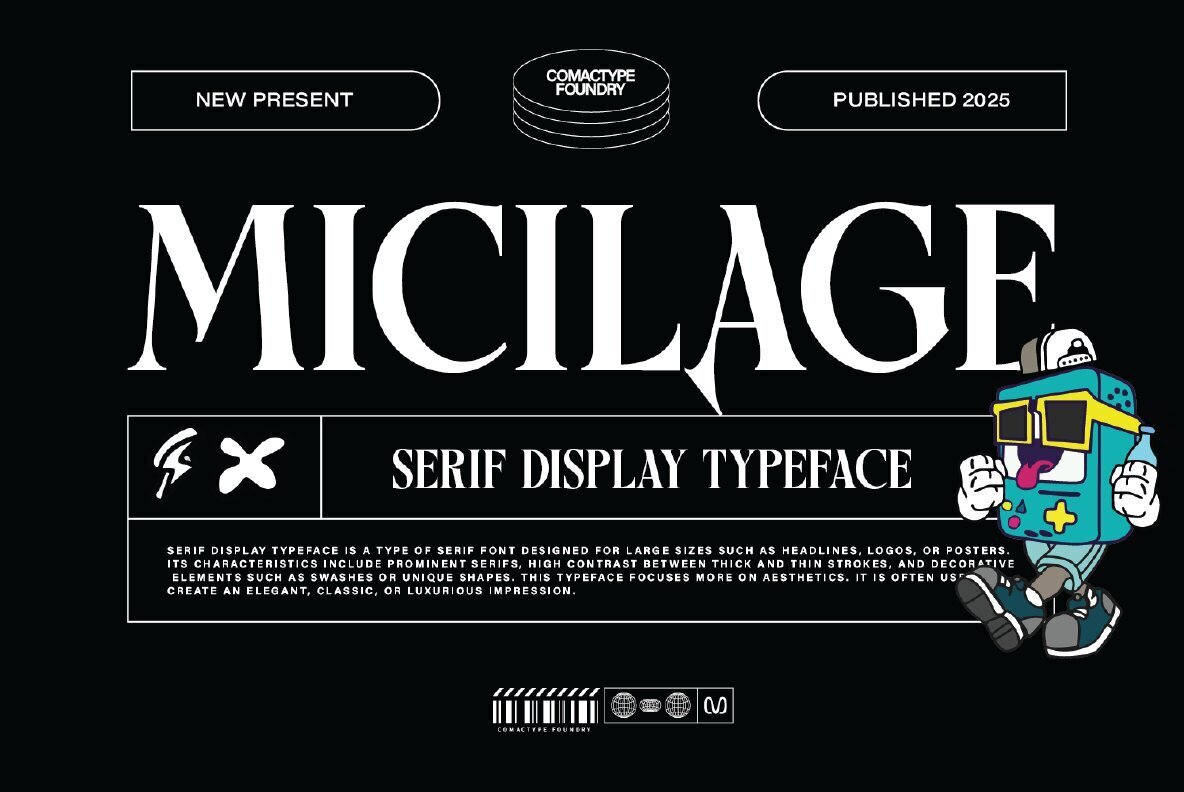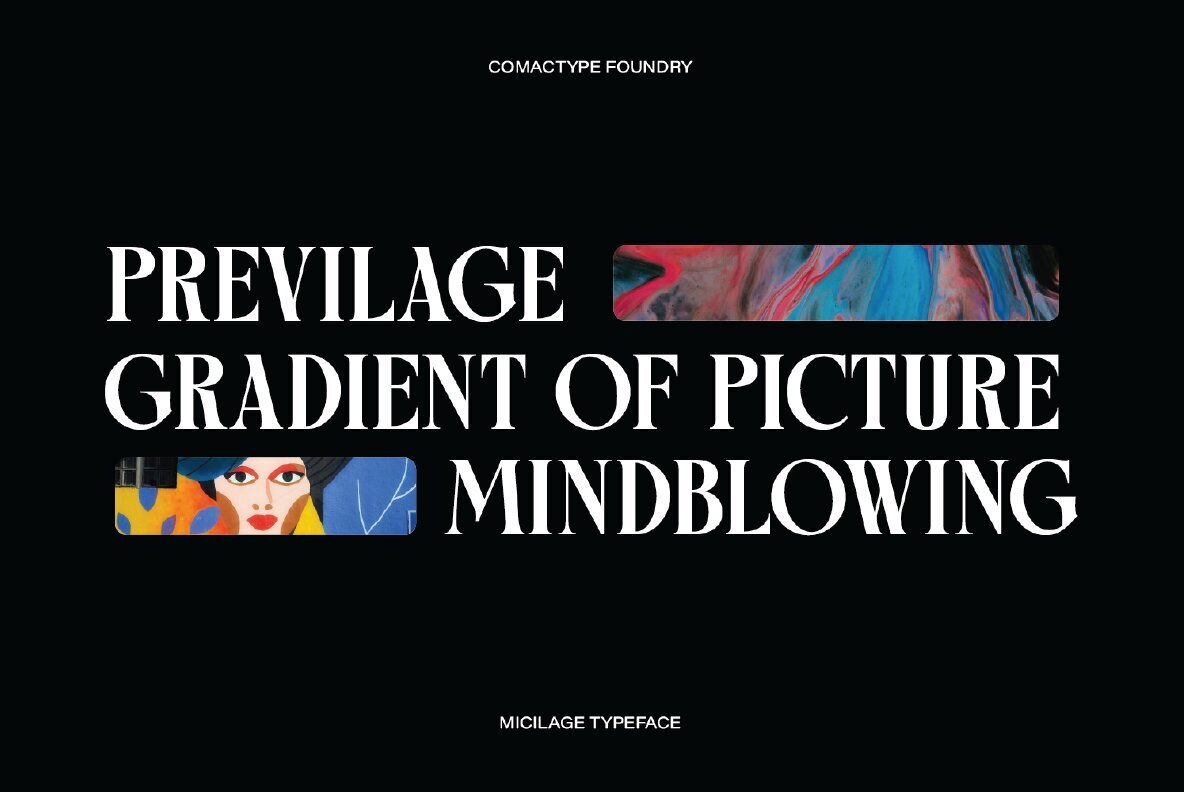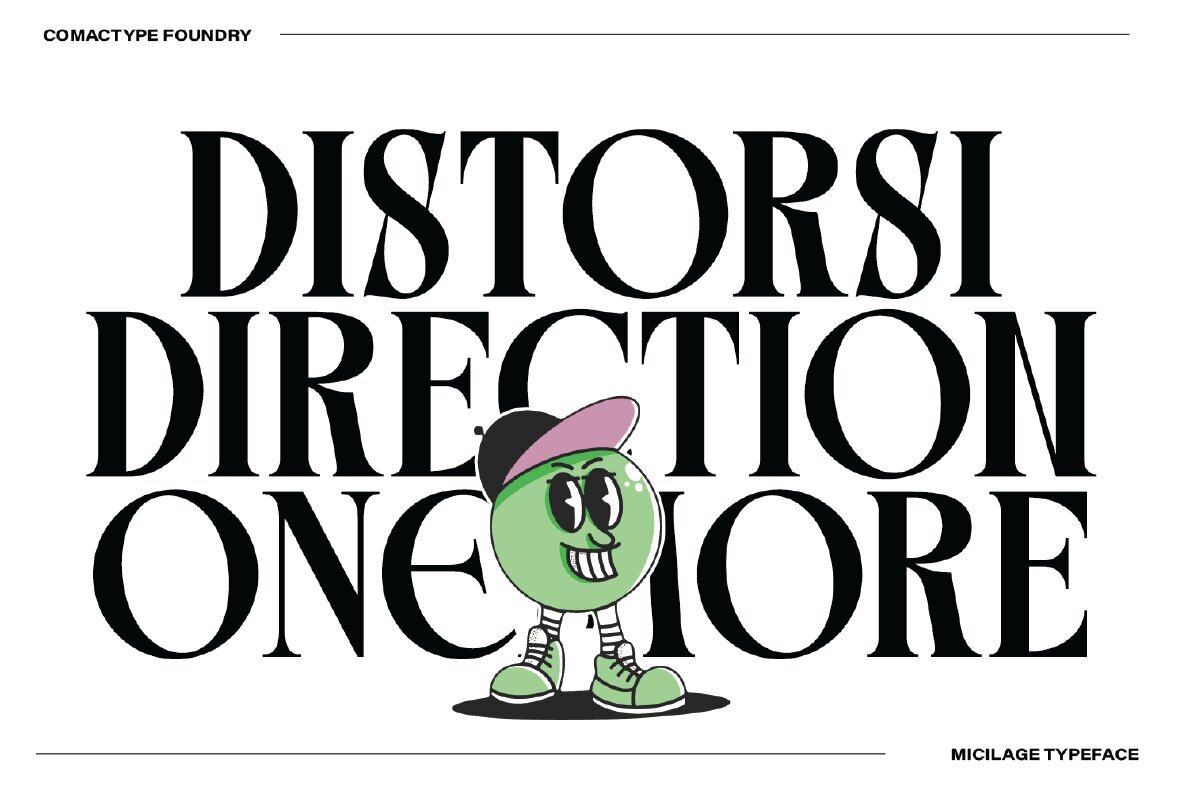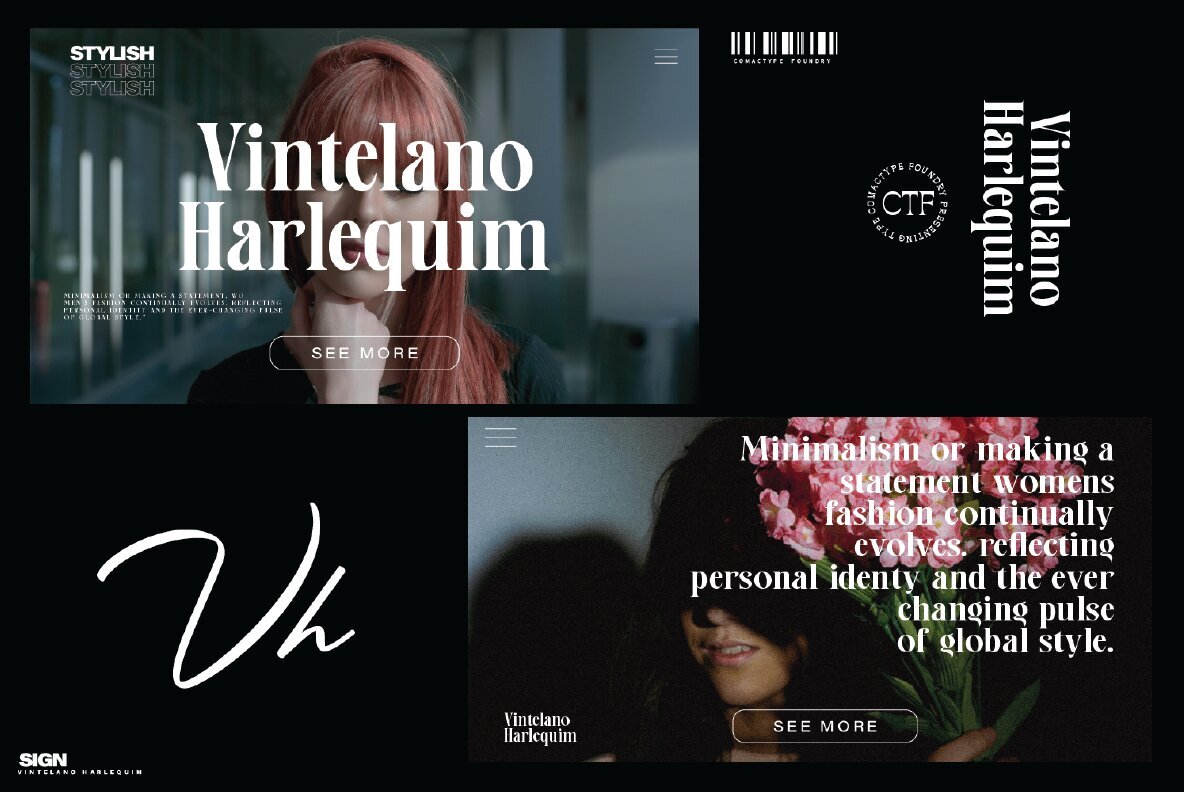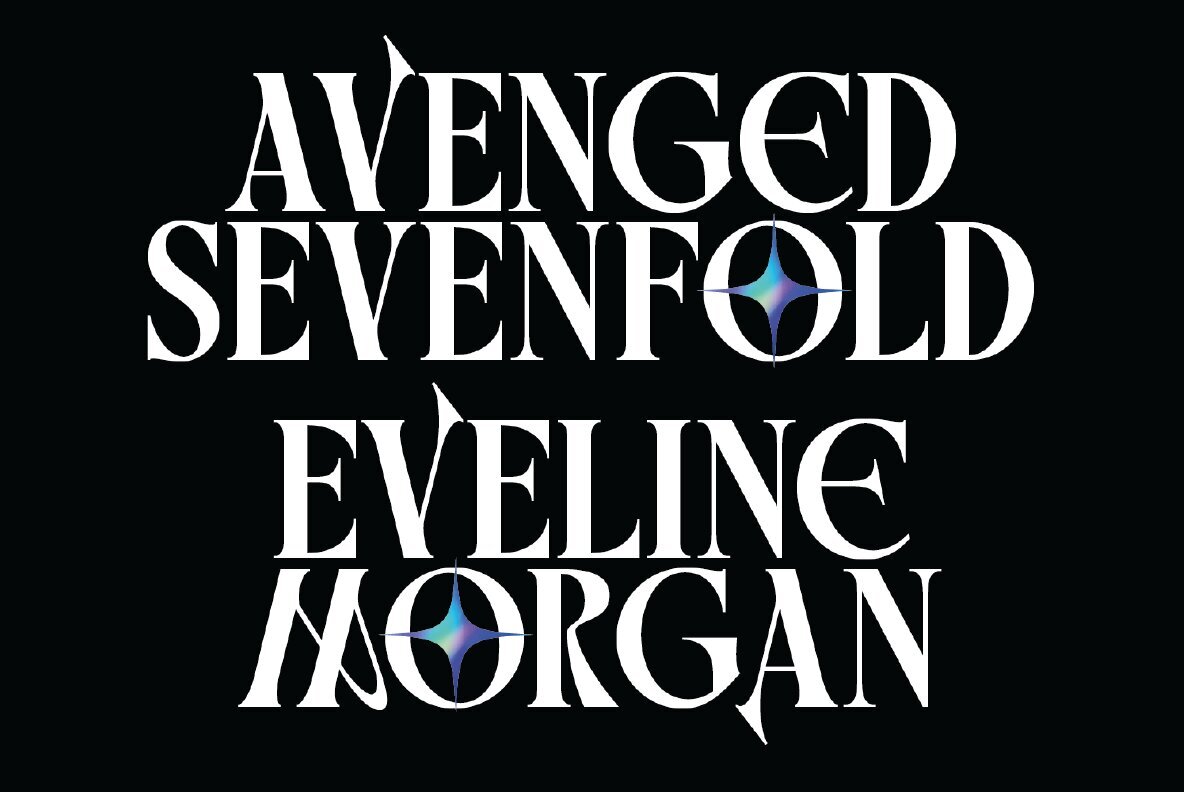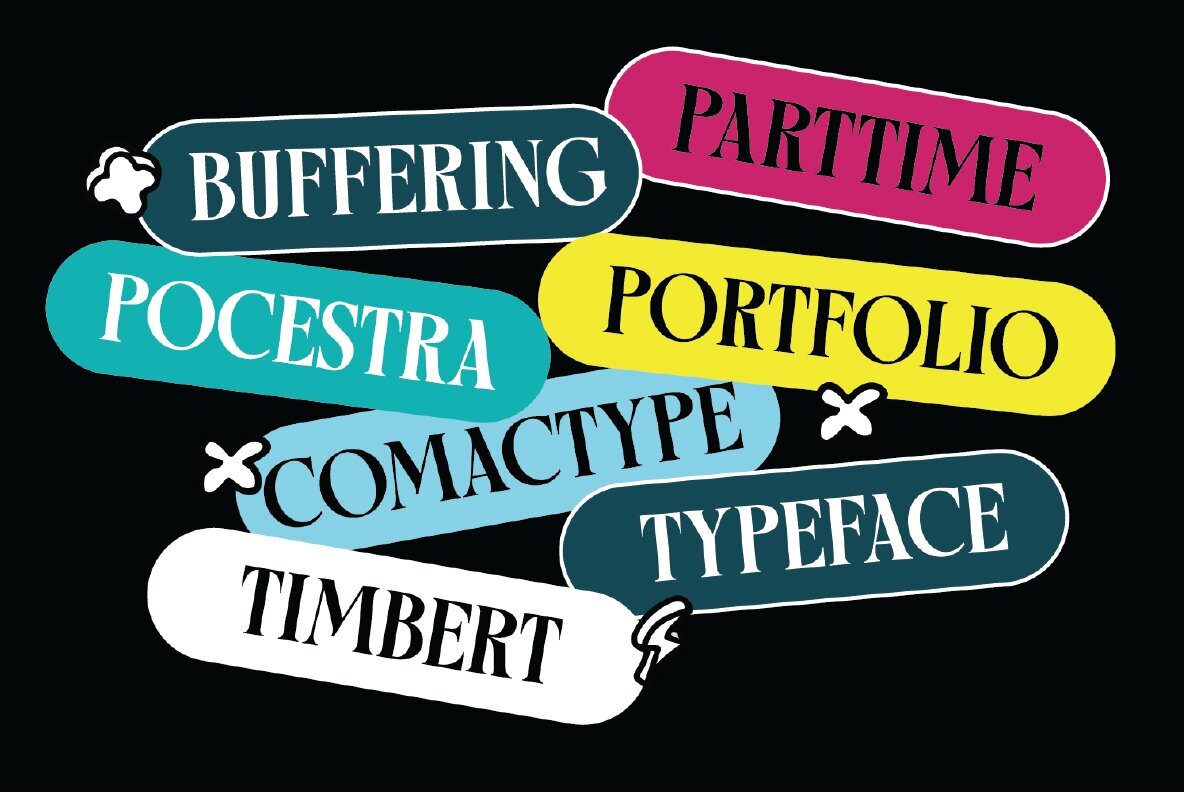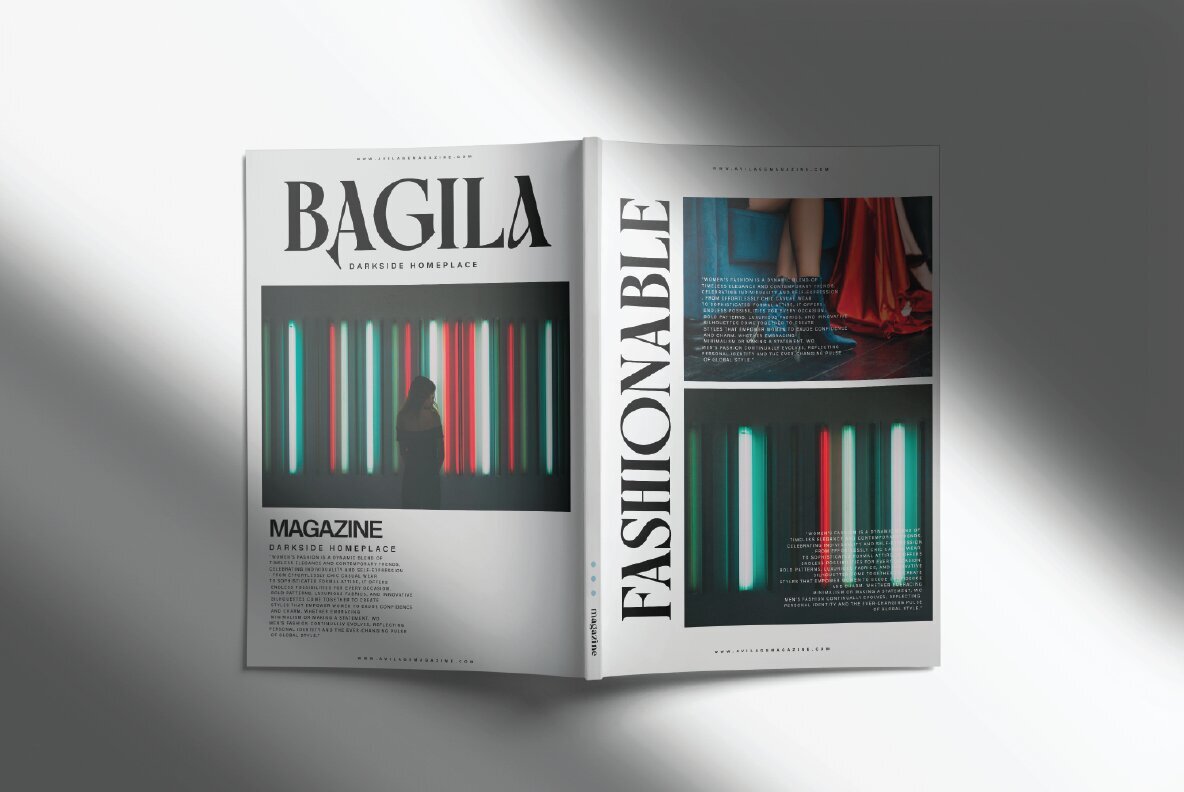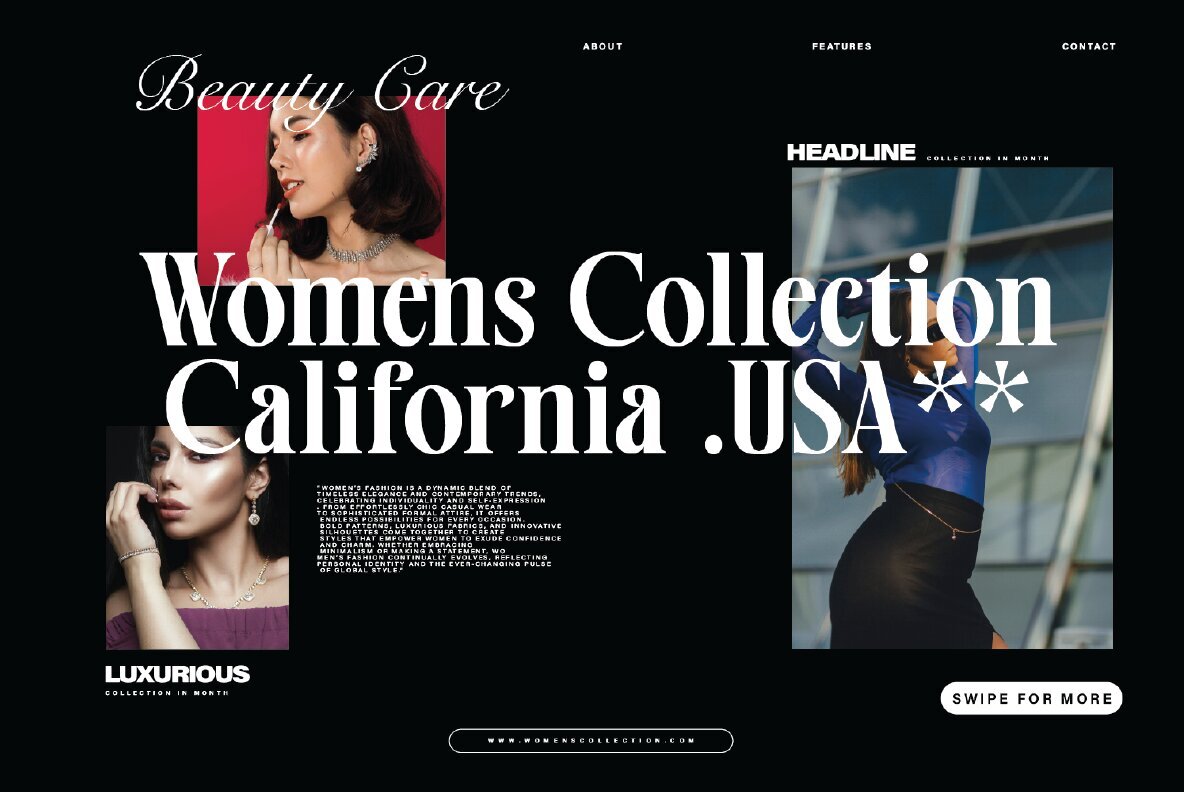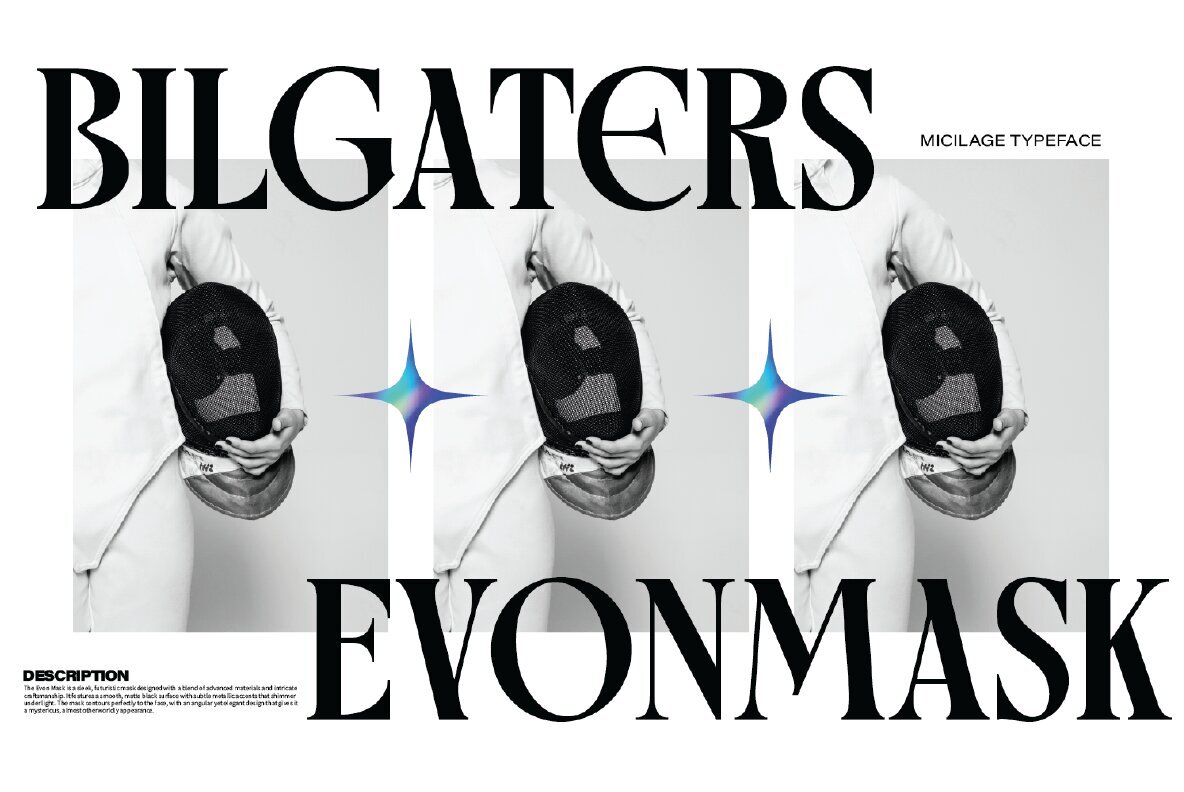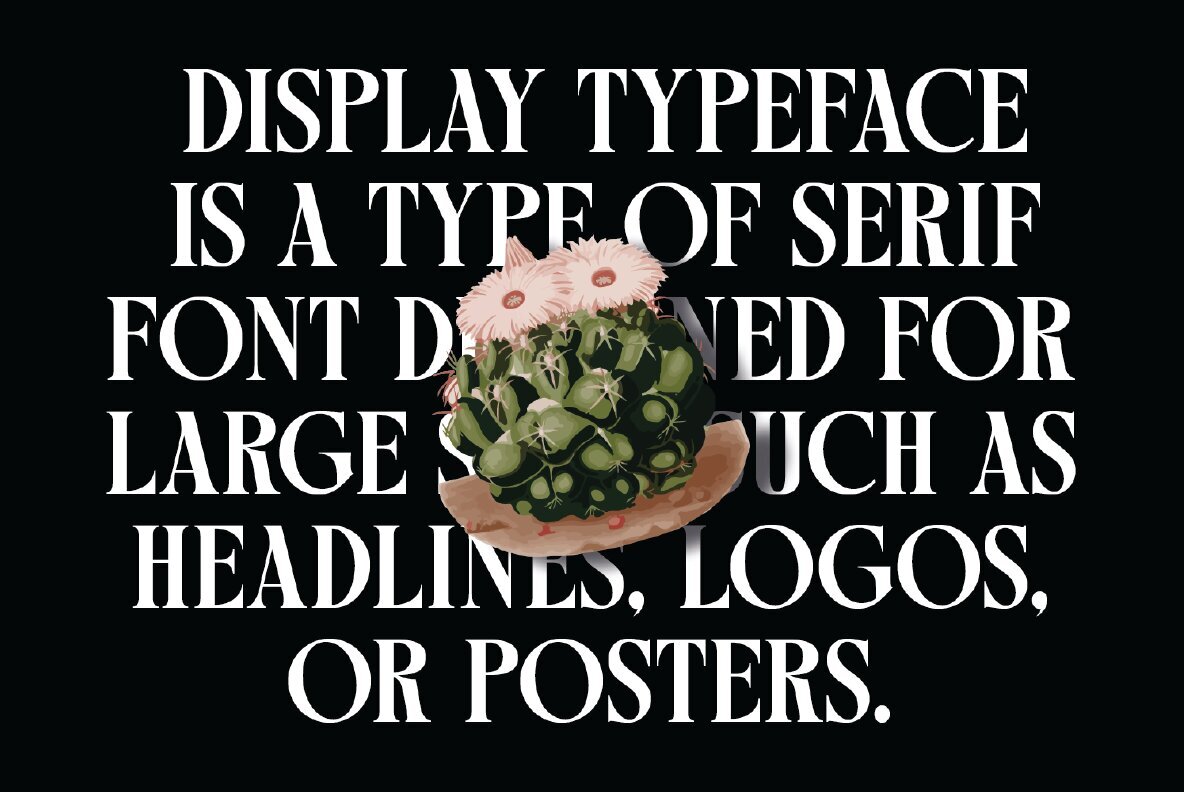
Micilage Font
MICILAGE Regular
Micilage is a serif display typeface known for its elegance and high contrast between thick and thin strokes. Its unique decorative elements, including swashes on selected uppercase letters, bring a timeless charm to any design. Crafted for large-scale use in headlines, logos, and posters, this font delivers a classic, luxurious, and bold impression. Featuring sturdy lowercase letters with thick serifs, Micilage offers a robust presence, while its uppercase letters present dynamic variations that seamlessly blend a modern aesthetic with retro flair. This typeface is ideal for projects that prioritize a sophisticated and artistic appearance.Micilage: Elegant Serif Display Font